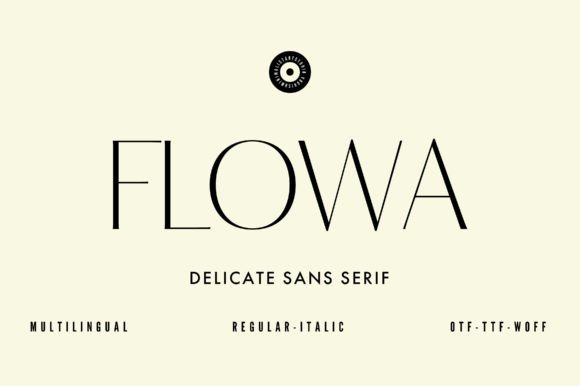
Uncover the sophistication and allure of Flowa, the exquisite sans serif font that captures the essence of modern elegance. With its crisp lines and harmonious letterforms, Flowa effortlessly adapts to any creative endeavor, adding a touch of understated luxury to your designs.
As a minimalist font, Flowa possesses an innate simplicity that allows your words to shine. Its delicate strokes and balanced proportions evoke a sense of serenity and grace, inviting your audience to immerse themselves in the purity of your message.
Whether you're crafting a Cricut DIY sign, designing a chic logo, or creating elegant invitations, Flowa serves as the perfect canvas for your artistry. Its adaptability extends to a wide range of applications, from digital designs to print projects.
With Flowa, you'll discover a font that complements your creative vision, enhancing your designs with a touch of modern flair. Its versatility empowers you to express your unique style, whether you prefer a clean and contemporary aesthetic or a timeless, classic look.
Embrace the beauty of Flowa and embark on a creative journey where simplicity and sophistication converge. Let your designs speak volumes with a font that embodies elegance and refinement, leaving a lasting impression on your audience.
Prepare to be captivated by Flowa, the epitome of modern typography. Experience the transformative power of simplicity as your designs take on a new level of sophistication. Unleash your creativity and elevate your projects with a font that encapsulates the essence of timeless elegance.